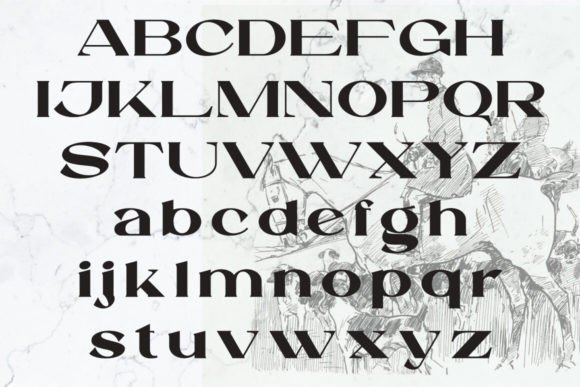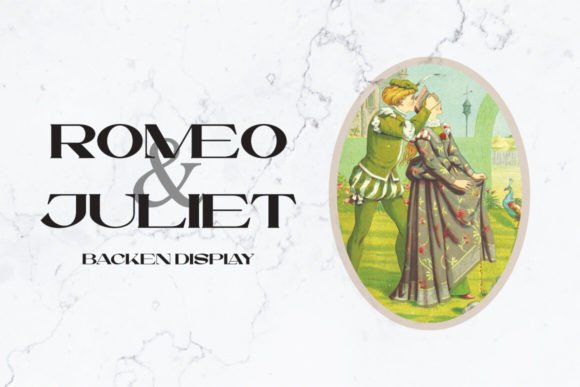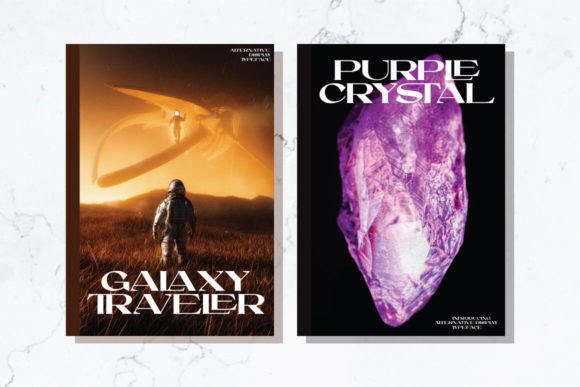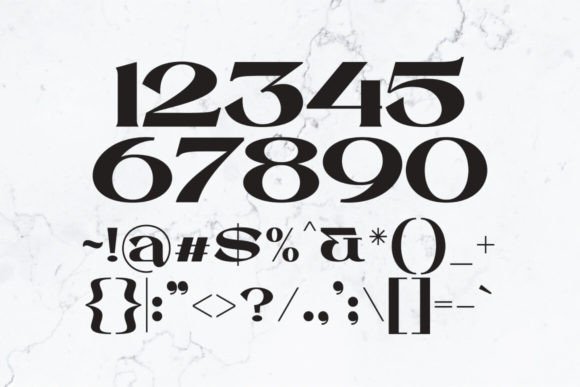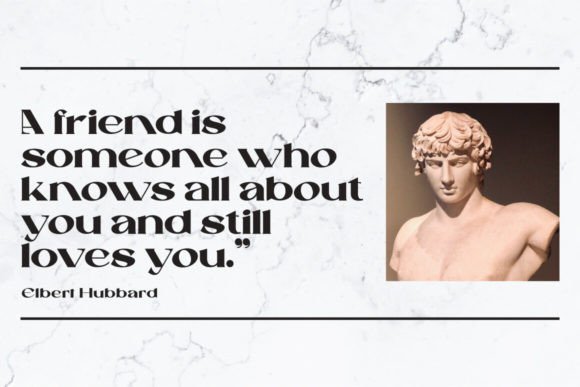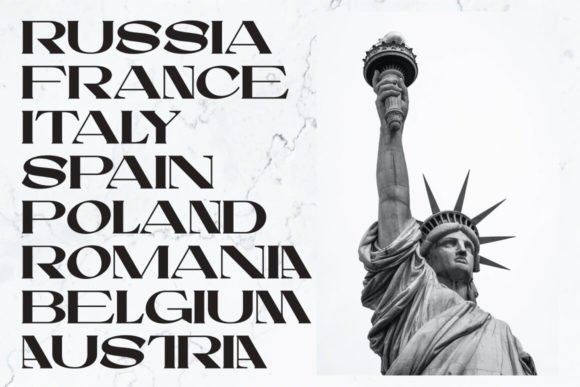
Introducing Backen Display Font: A Modern Serif with a Strong Style
Are you looking for a font that can add a touch of elegance and sophistication to your designs? Look no further than Backen Display Font, a new and modern serif font that is sure to make a statement. With its strong style and dancing baseline, this font is perfect for a variety of design projects, from invitations and greeting cards to branding materials and posters.
A Fresh and Modern Take on Serif Fonts
Backen Display Font is a bold and modern take on traditional serif fonts. Its sharp, triangular serifs and distinctive letter shapes give it a unique and impressive look that is sure to grab attention. Whether you’re looking to create a bold and dramatic effect or a more subtle and sophisticated one, Backen Display Font is the perfect choice.
Perfect for Display Sizes and Readable Text
One of the standout features of Backen Display Font is its versatility. This font is both impressive at display sizes and easily readable in text size, making it perfect for a wide range of design projects. Whether you’re creating a bold headline or a block of text, Backen Display Font is sure to perform beautifully.
Use Backen Display Font for a Variety of Design Projects
So, what can you use Backen Display Font for? The possibilities are endless! Here are a few ideas to get you started:
- Invitations and Greeting Cards: Add a touch of elegance and sophistication to your invitations and greeting cards with Backen Display Font.
- Branding Materials: Use Backen Display Font to create bold and eye-catching branding materials, such as logos and business cards.
- Posters and Flyers: Make a statement with Backen Display Font on your posters and flyers.
- Quotes and Inspirationals: Add a touch of personality and whimsy to your quotes and inspirationals with Backen Display Font.
Why Choose Backen Display Font?
So, why choose Backen Display Font over other fonts? Here are just a few reasons:
- Unique and Modern Design: Backen Display Font has a unique and modern design that is sure to grab attention.
- Versatility: This font is perfect for a wide range of design projects, from display sizes to readable text.
- Elegant and Sophisticated: Backen Display Font adds a touch of elegance and sophistication to any design.
In conclusion, Backen Display Font is a modern serif font that is sure to make a statement in your designs. With its strong style, dancing baseline, and versatile design, this font is perfect for a wide range of design projects. Whether you’re a designer, crafter, or DIY enthusiast, Backen Display Font is a great choice for adding a touch of elegance and sophistication to your work. So why wait? Try Backen Display Font today and see the difference it can make!